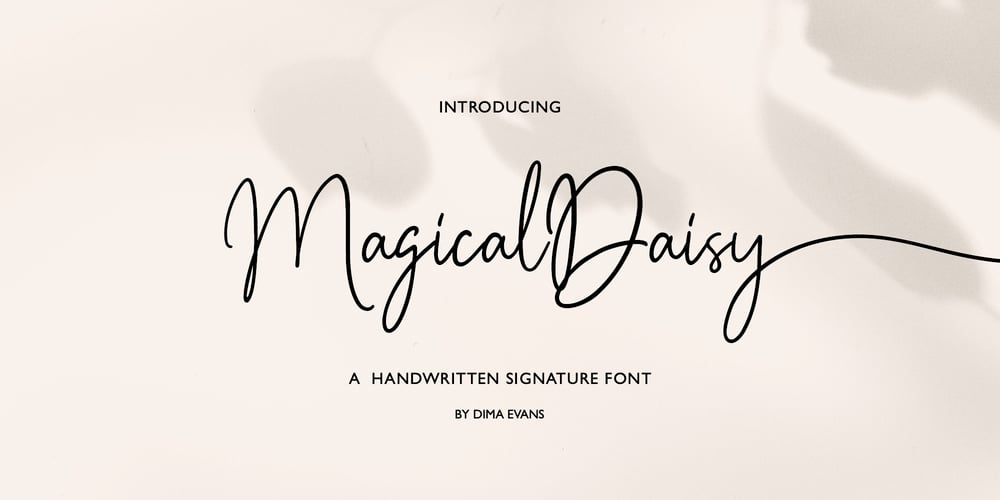
Magical Daisy Font Family was designed by Dmitrii Chirkov and published by Supfonts. Magical Daisy contains 2 styles and family package options. Magical Daisy is a cute handwritten signature font. Perfect for greeting cards, wedding stationery, photographer watermarks logos, modern websites, apparel design and more.Magical Daisy features handwritten ligatures and beginning and end swashes for lowercase letters.Thanks so much for checking out my shop, and please get in touch if you have any questions! —Magical Daisy Font Features- Full Set of standard alphabet and punctuation- Extra set of beginning and ending swashed lowercase- 78 handwritten ligatures- PUA Encoded – no special software needed to access extra characters- Multilingual Characters AÁĂÂÄÀĀĄÅÃÆBCĆČÇĊDÐĎĐEÉĚÊËĖÈĒĘẼFGĞĢĠḠHĦIIJÍÎÏİÌĪĮĨJKĶLĹĽĻŁMNŃŇŅÑOÓÔÖÒŐŌØÕŒPÞQRŔŘŖSŚŠŞȘẞTŤŢȚUÚÛÜÙŰŪŲŮŨVWẂŴẄẀXYÝŶŸỲỸZŹŽŻaáăâäàāąåãæbcćčçċdðďđeéěêëėèēęẽfgğģġḡhħiıíîïìijīįĩjȷkķlĺľļłmnńňņñoóôöòőōøõœpþqrŕřŗsśšşșßtťţțuúûüùűūųůũvwẃŵẅẁxyýŷÿỳỹzźžż